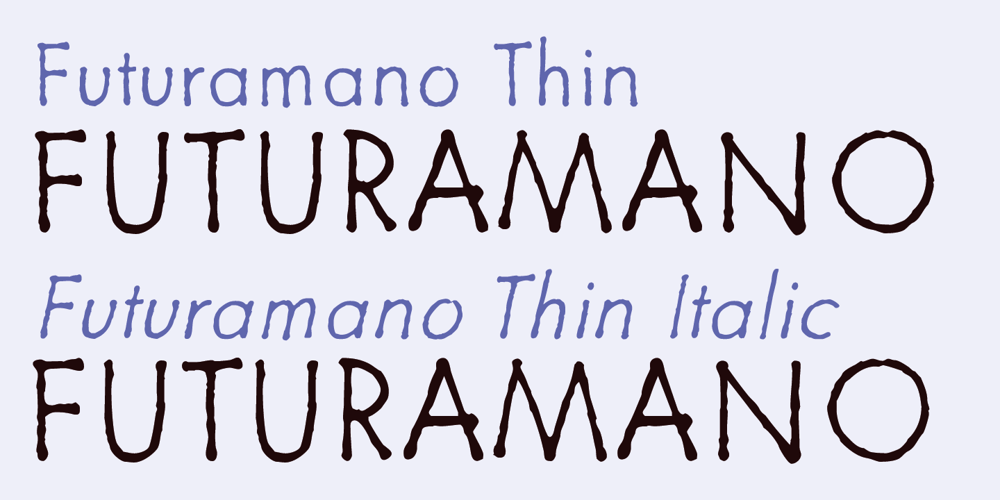
Futuramano Font Family was designed by Gert Wiescher and published by Wiescher Design. Futuramano contains 16 styles and family package options. Futuramano was the kind of typeface we scribbled in those old days, when I was an art-director in advertising agencies. We used it to simulate the headlines and the subheads, so the client could read what the copywriters had in mind. As Futura was the font of choice in those days (as it still is), our scribbled typeface looked much like Futura. The second half of the name “mano” means hand, so that is what it is, kind of a handwritten Futura. Futuramano is very practical if you want to have that unfinished touch! Yours very nostalgic Gert Wiescher